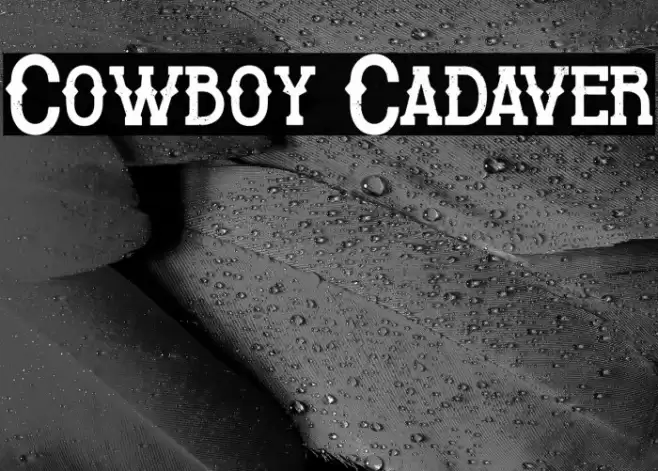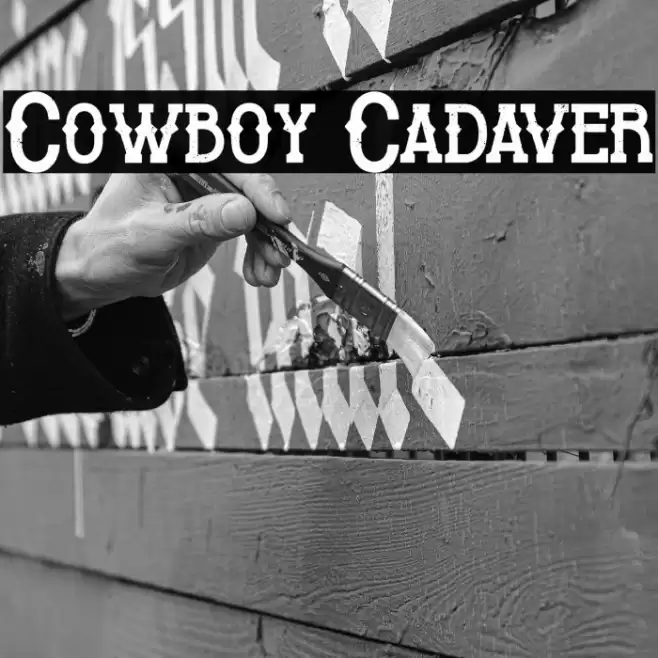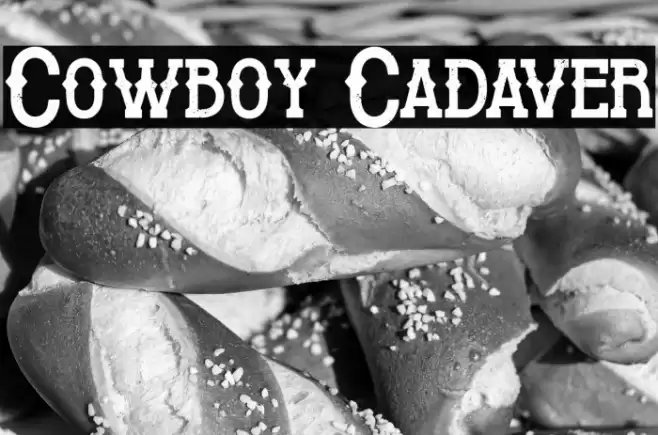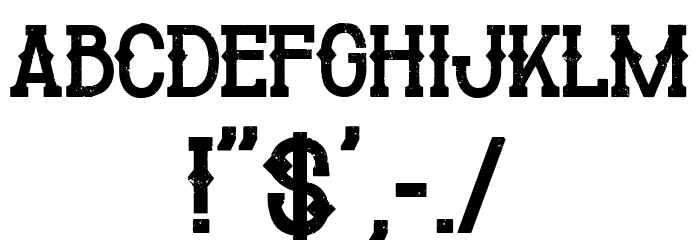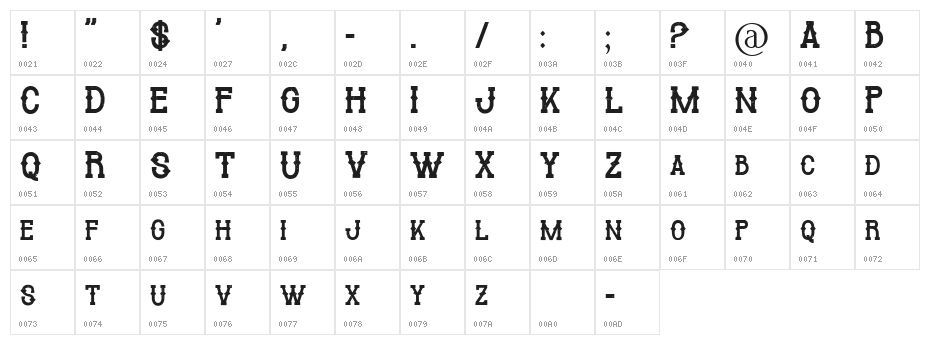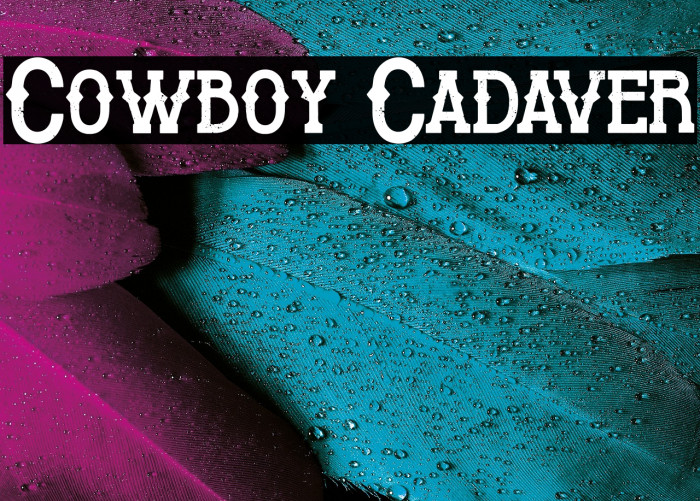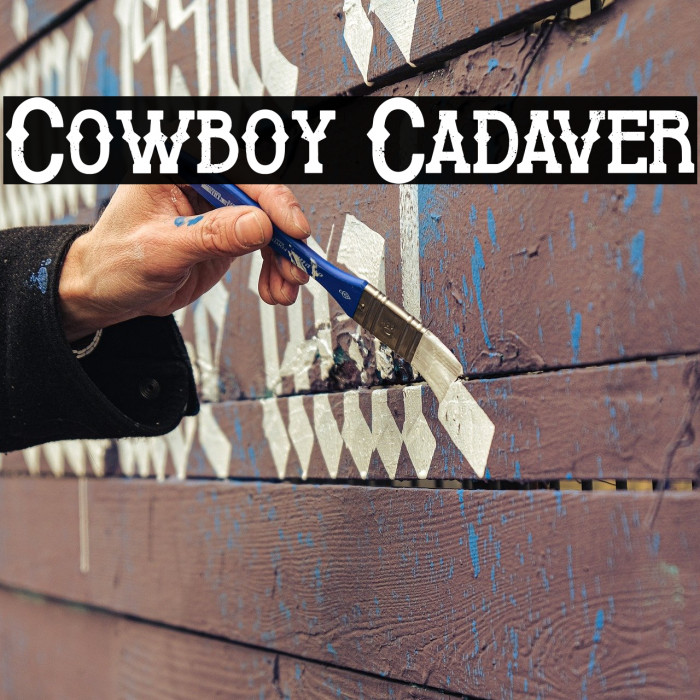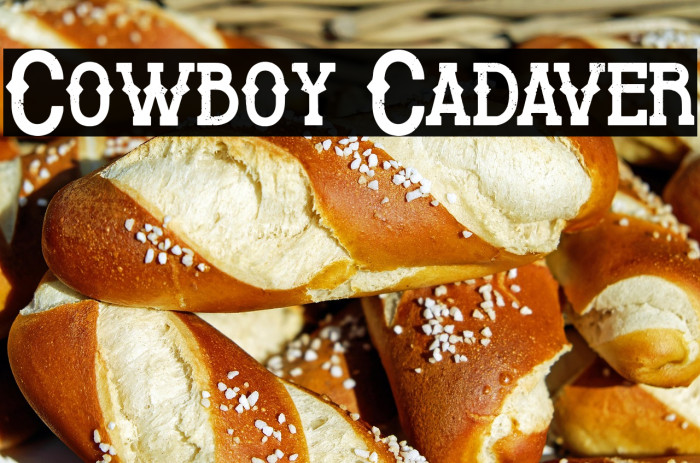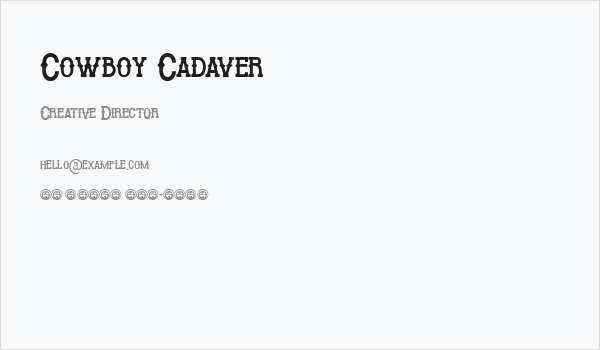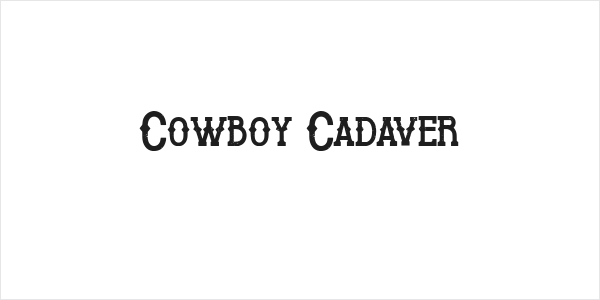
Cowboy Cadaver Font
Cowboy Cadaver Description
This font features a rugged, distressed style that evokes a sense of the Wild West. The characters are bold and heavily textured, giving them a weathered appearance. Each letter has a strong, slab serif structure with a slightly condensed form, enhancing its sturdy and robust look. The font's unique texture adds a vintage and rustic charm, making it ideal for projects that require an authentic, old-fashioned feel. The uppercase letters are prominent, with consistent spacing that maintains readability despite the distressed design. The special characters share the same textured style, ensuring a cohesive look across all elements.
A rugged, distressed slab serif font with a vintage, Wild West feel from Regular fonts.
- Font: Cowboy Cadaver
- Proposed Projects: Ideal for Western-themed posters, vintage branding, rustic signage, and themed event invitations.
- Overall Style: Vintage